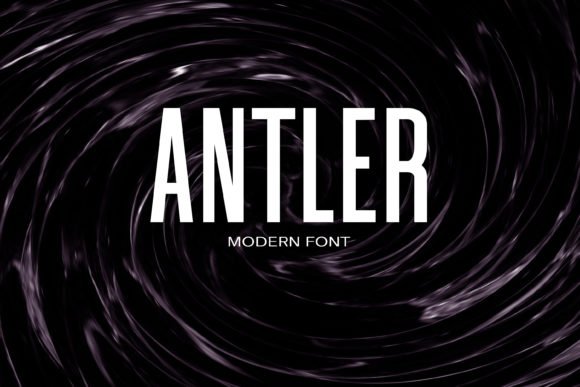
The Birth of a Modern Classic: Antler Font
As a designer, have you ever stared at a blank canvas, waiting for the perfect font to bring your vision to life? It’s a feeling we’re all too familiar with. The blank page stares back, taunting us to make a move. But what if the perfect font was just a click away? Enter the Antler Font, a stunning sans serif font that’s about to revolutionize your design game.
Antler Font is a game-changer, inspired by the traditional sign painting techniques of the past, with a modern twist that’s sure to captivate your audience. Its clean and minimal design makes it the perfect addition to any modern design project. Whether you’re a seasoned pro or just starting out, the Antler Font is a valuable tool that will elevate your designs and take your creativity to new heights.
Antler Font Key Features
- Font Family: Antler is a sans-serif font family designed for use in digital and print media.
- Font Size: Available in 8 different weights, ranging from Light (100) to Extra Bold (800).
- Resolution: Designed for use at high resolutions, up to 300 DPI for print media and 96 DPI for digital media.
- Unique Characteristics: Antler features a distinctive, modern design with a strong x-height and a subtle, rounded feel.
Review: Antler Font
I recently had the chance to work with the Antler font, and I must say it’s an interesting choice for designers looking for a unique sans-serif font. ✨ The font’s distinctive character and flair for the dramatic make it a great fit for projects that need to stand out from the crowd. The Antler font also has a wide range of weights, from light to bold, making it versatile for use in various contexts.
One of the things that really caught my eye was the font’s ligatures. The Antler font features a wide range of ligatures that add a touch of elegance to any text. ✨ The ligatures are well-designed and don’t feel forced or overly complicated. Overall, I was impressed by the attention to detail that went into designing the Antler font.
- ⚠️ The Antler font can be challenging to read in certain contexts, especially at smaller font sizes. This is due to the font’s unique character and flair for the dramatic.
- ⚠️ The font may not be suitable for projects that require a clean and minimalist aesthetic. The Antler font is better suited for projects that need a bit of flair and personality.
Overall, I think the Antler font is a great choice for designers looking to add a bit of flair to their projects. While it may have some limitations, the font’s unique character and ligatures make it a standout choice for those who want to make a statement.
Practical Application Guide for Antler Font
In PowerPoint and Word, you can access Antler Font through the ‘Home’ tab. Select the ‘Antler’ font and adjust the font size, color, and style using the toolbar. You can also use the ‘Font’ dialog box to fine-tune your font settings. Antler Font is perfect for creating presentations, reports, and other documents that require a professional and modern look.
Tips for Getting the Most Out of Antler Font
To get the most out of Antler Font, try experimenting with different font sizes, colors, and styles. You can also combine Antler Font with other fonts to create a unique and visually appealing design. Don’t be afraid to push the boundaries and try new things – Antler Font is a versatile font that can be used in a variety of creative ways.
Antler Font is commonly used for creating:
- Logos and icons
- Presentation slides
- Reports and documents
Alternatives to Antler Font
Playfair Display is an elegant and luxurious serif font, ideal for creating a sophisticated and high-end look. It features intricate details and ornate flourishes, making it perfect for use in logos, headings, and titles. Compared to Antler Font, Playfair Display is more formal and traditional, whereas Antler Font has a more rustic and natural feel.
Great Vibes is a modern script font that exudes a sense of elegance and sophistication. It’s perfect for use in invitations, branding, and other creative projects where a unique and stylish look is desired. Compared to Antler Font, Great Vibes is more fluid and cursive, whereas Antler Font has a more rugged and hand-drawn feel.